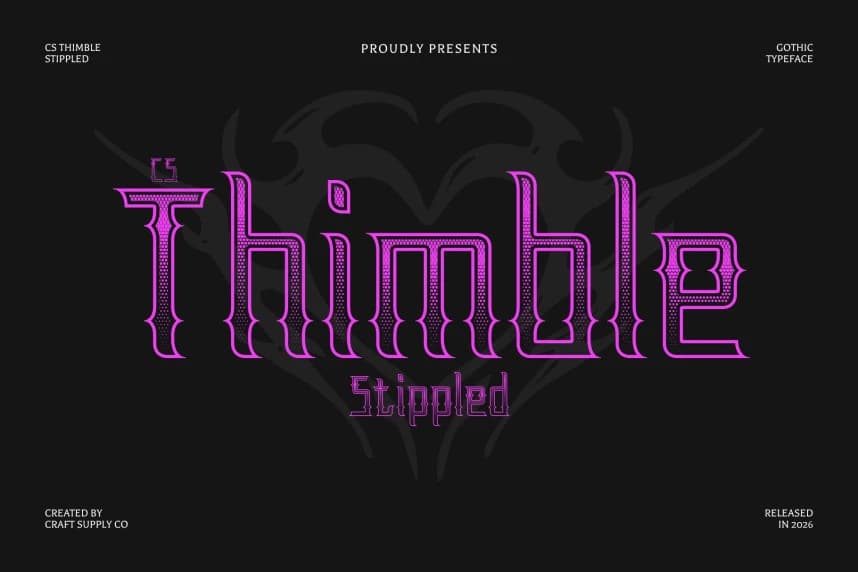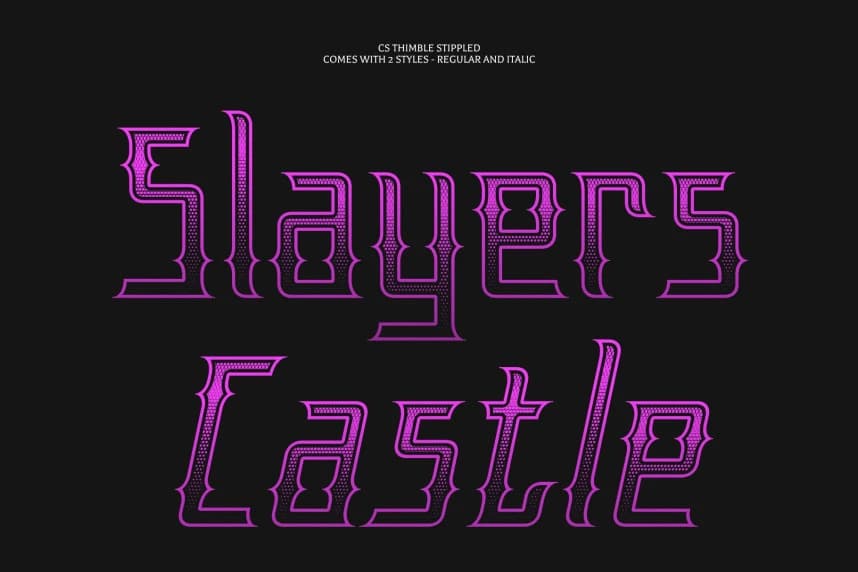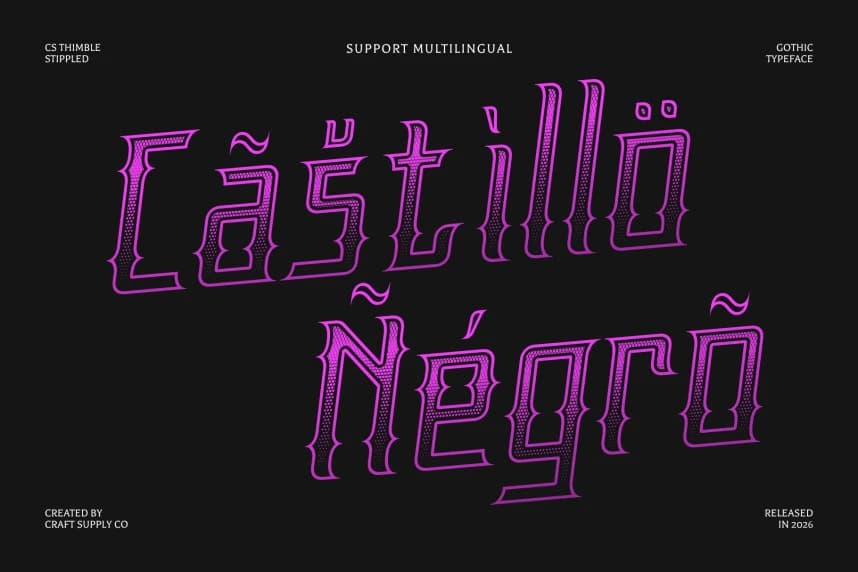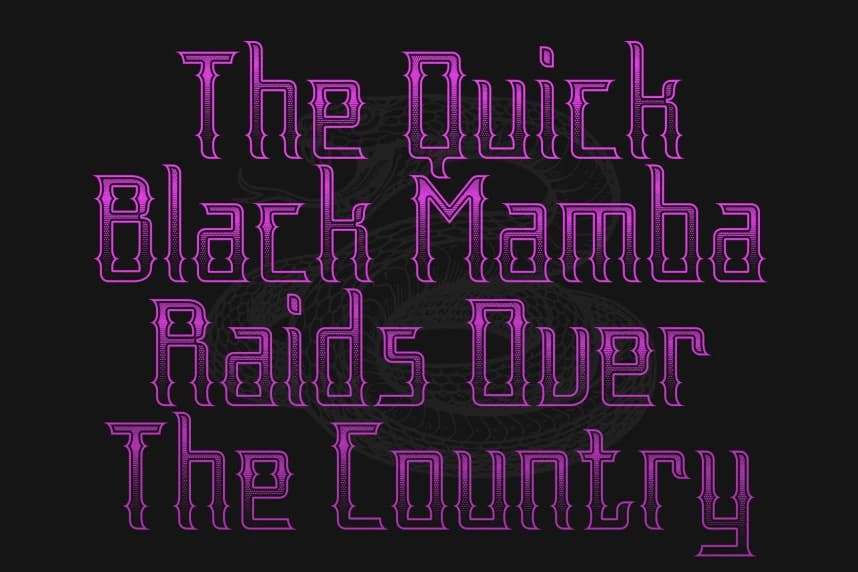
CS Thimble Stippled Font
CS Thimble Stippled Font – Gothic Font with Mystical Textured Elegance Gothic Style with Stippled Depth. This is a captivating gothic display font that evokes the mystery and artistry of medieval typography.